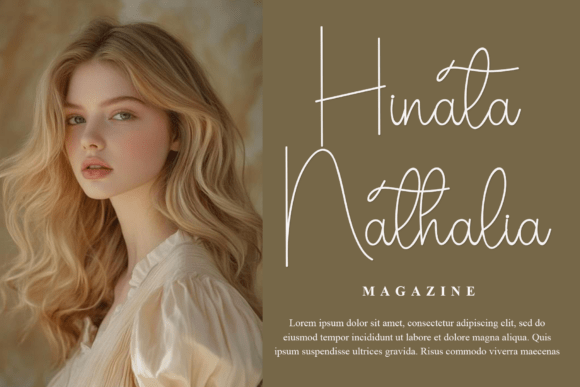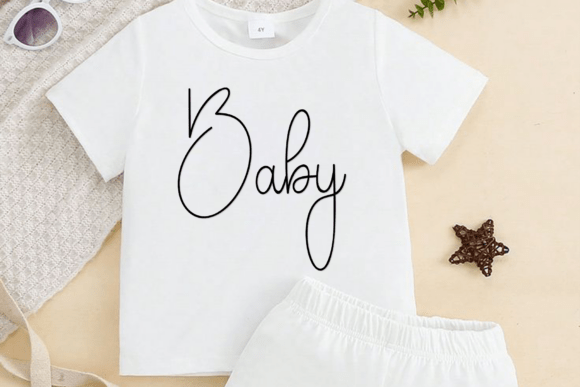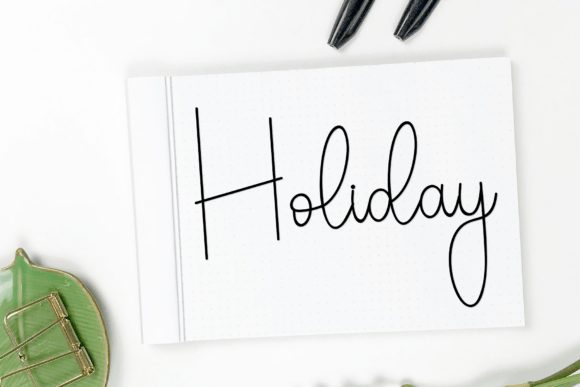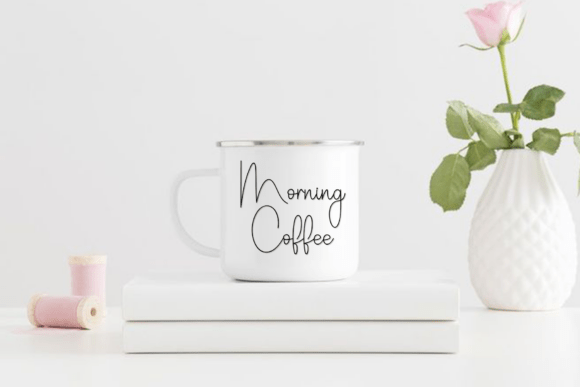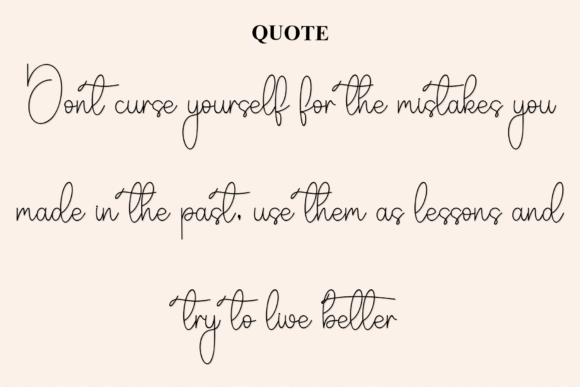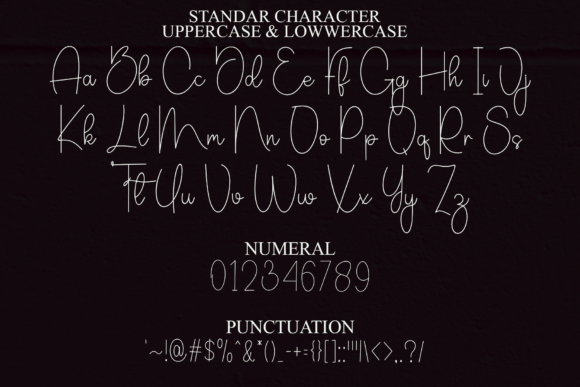
Introducing Greatings Font: The Ultimate Holiday Typeface
Are you looking for a font that embodies the spirit of the holiday season? Do you want to add a touch of magic to your designs and make them stand out? Look no further than Greatings Font, a festive and merry typeface that’s perfect for greeting cards, gift tags, and holiday-themed projects.
A Festive and Whimsical Typeface
Greatings Font is a decorative typeface that’s designed to capture the essence of the holiday season. With its whimsical flair and enchanting elements, this font adds a cheerful and nostalgic ambiance to your words. Whether you’re designing a holiday greeting card, a gift tag, or a festive poster, Greatings Font is the perfect choice.
Greatings Font is a versatile typeface that’s perfect for designers and crafters alike. If you’re a designer, you can use this font to create stunning holiday-themed designs that will leave your clients in awe. If you’re a crafter, you can use this font to add a personal touch to your DIY projects, such as handmade cards, gift tags, and decorations.
One of the best things about Greatings Font is that it’s PUA encoded, which means you can access all of the amazing glyphs and ligatures with ease. This font is designed to make it easy for you to create beautiful and intricate designs without having to worry about complicated encoding. With Greatings Font, you can simply type in your text and let the font do the rest.
What You Can Create with Greatings Font
With Greatings Font, the possibilities are endless. Here are some ideas to get you started:
- Holiday greeting cards: Create stunning holiday greeting cards that will impress your friends and family.
- Gift tags: Add a personal touch to your gifts with custom gift tags made with Greatings Font.
- Festive posters: Create eye-catching festive posters that will add a touch of holiday cheer to any room.
- Social media graphics: Use Greatings Font to create festive social media graphics that will make your followers smile.
- DIY projects: Add a personal touch to your DIY projects, such as handmade cards, gift tags, and decorations.
Why Choose Greatings Font?
So why choose Greatings Font over other holiday-themed fonts? Here are just a few reasons:
- Unique and festive design: Greatings Font has a unique and festive design that will add a touch of holiday cheer to any project.
- Easy to use: Greatings Font is PUA encoded, making it easy to access all of the amazing glyphs and ligatures.
- Versatile: Greatings Font is perfect for a wide range of projects, from holiday greeting cards to DIY crafts.
- High-quality: Greatings Font is a high-quality font that’s designed to produce stunning results.
In conclusion, Greatings Font is the ultimate holiday typeface that’s perfect for designers and crafters alike. With its festive and whimsical design, PUA encoding, and versatility, this font is sure to add a touch of magic to your designs. Whether you’re creating holiday greeting cards, gift tags, or DIY projects, Greatings Font is the perfect choice. So why wait? Download Greatings Font today and let your typography shine with the magic of this beautiful font!